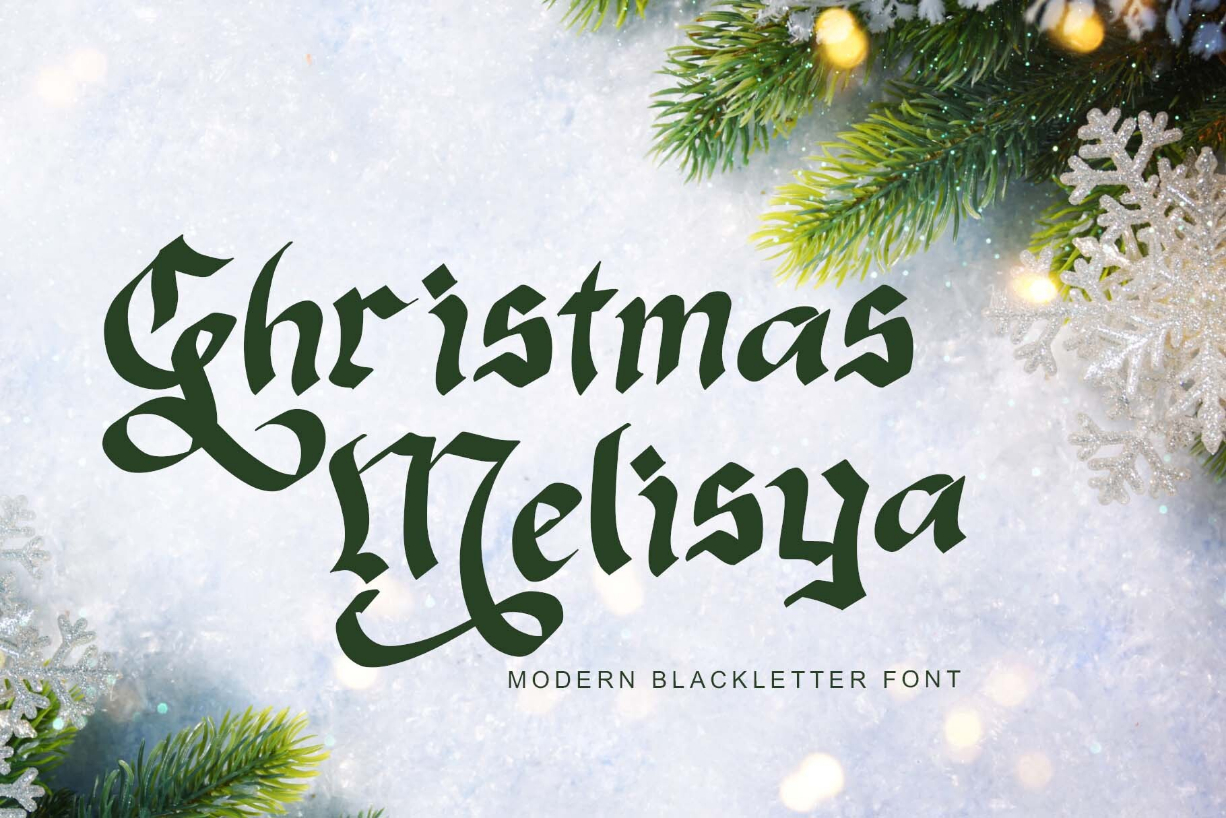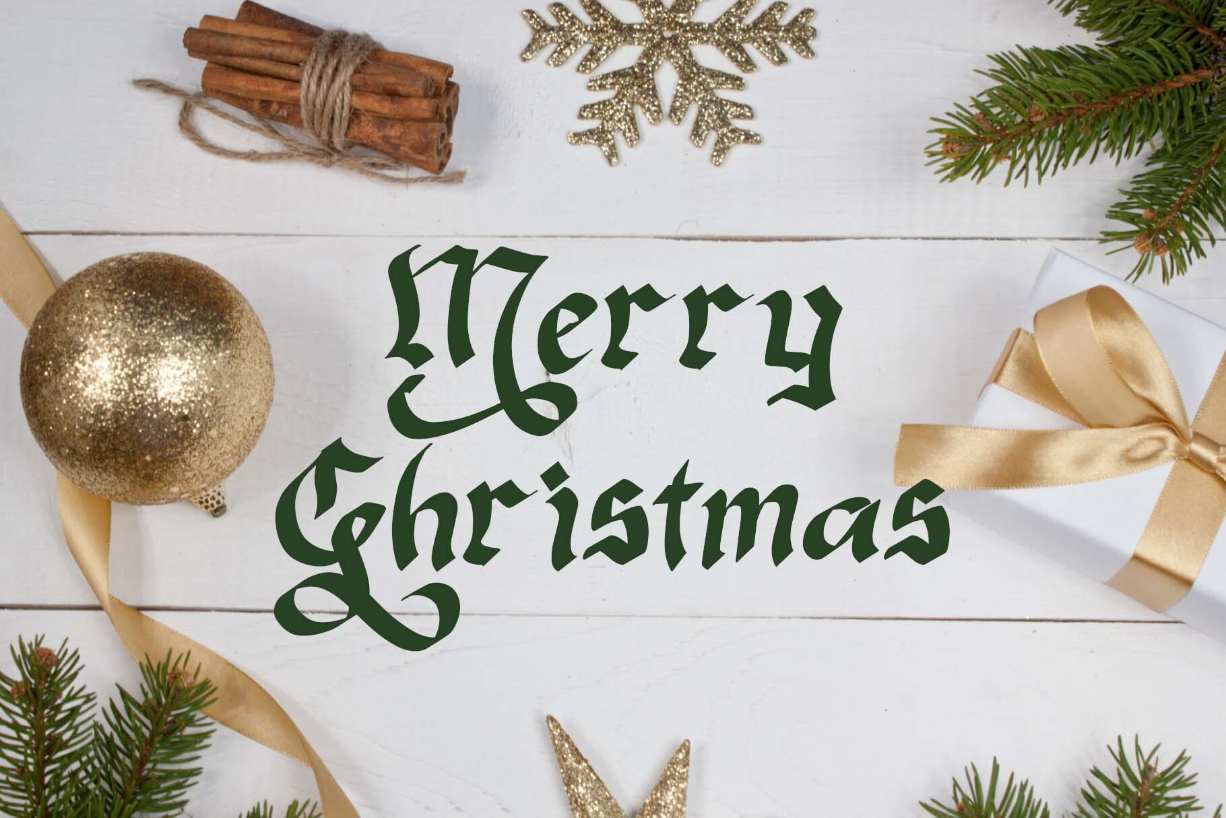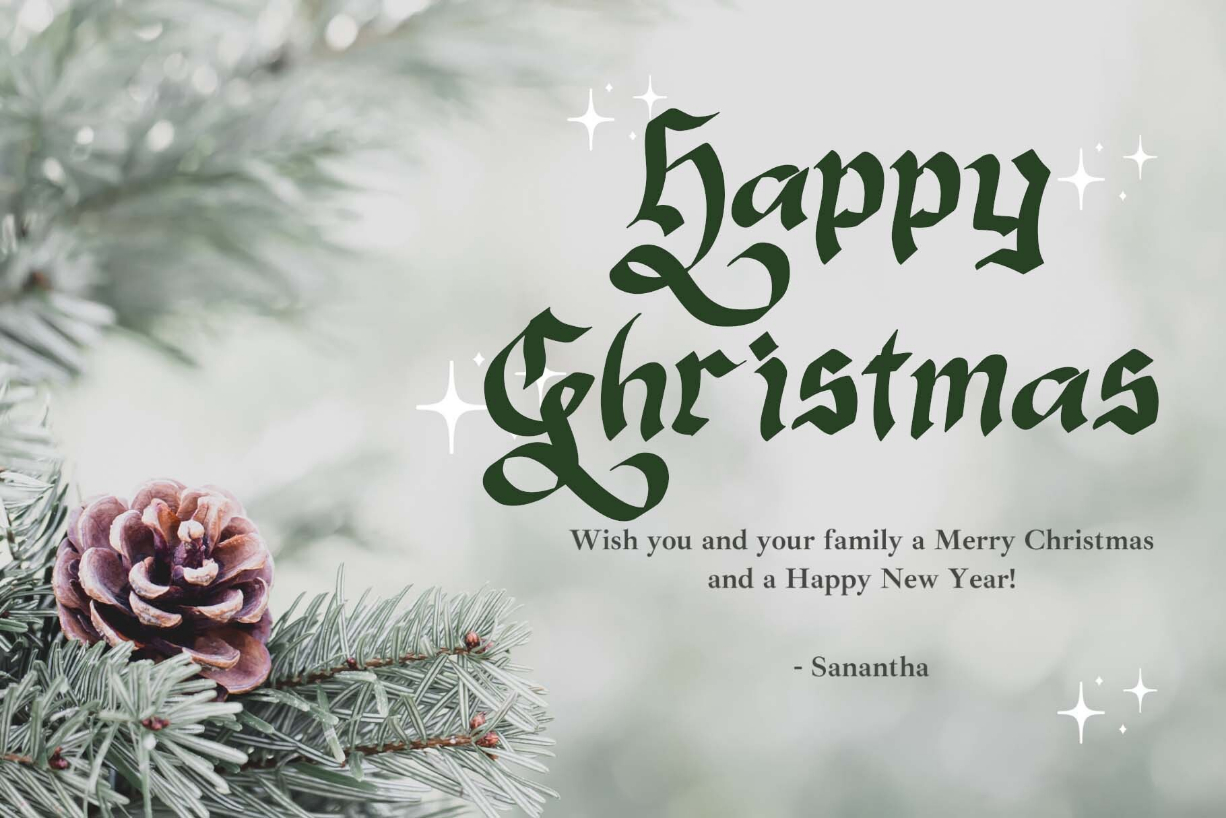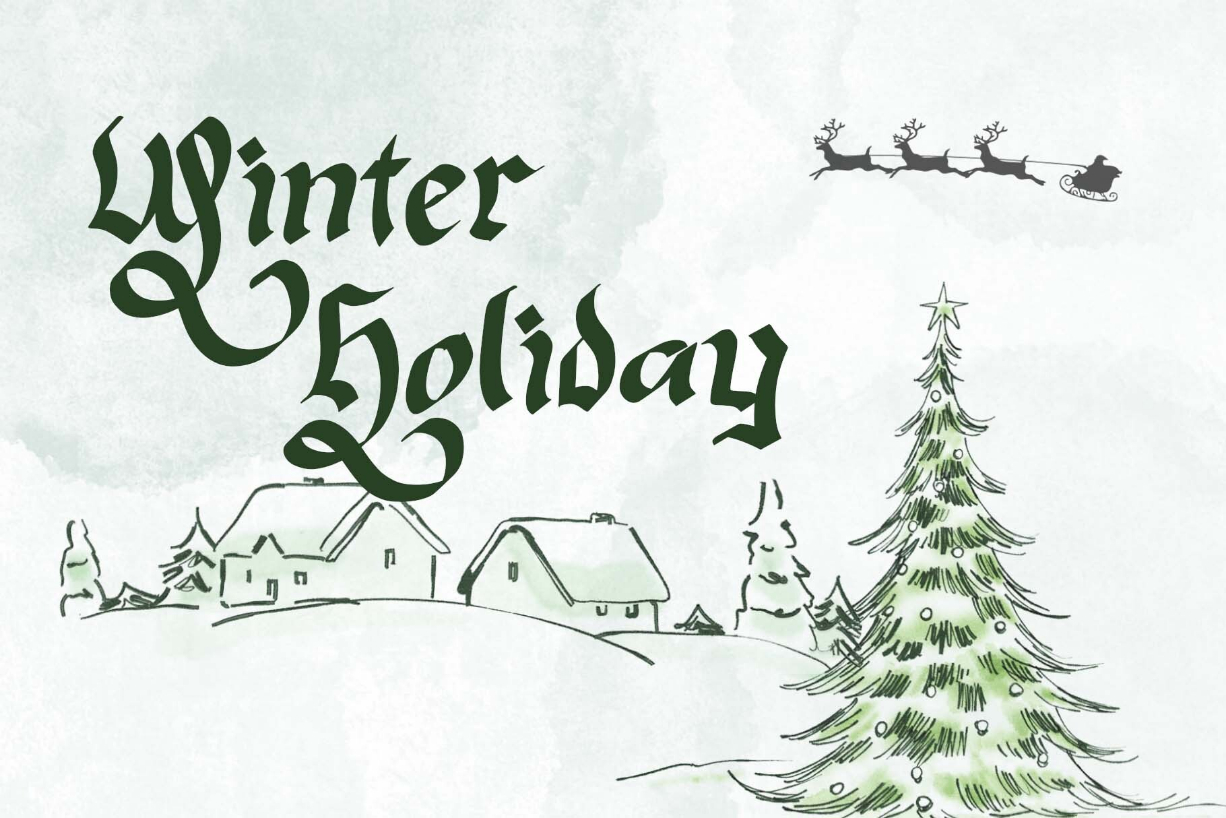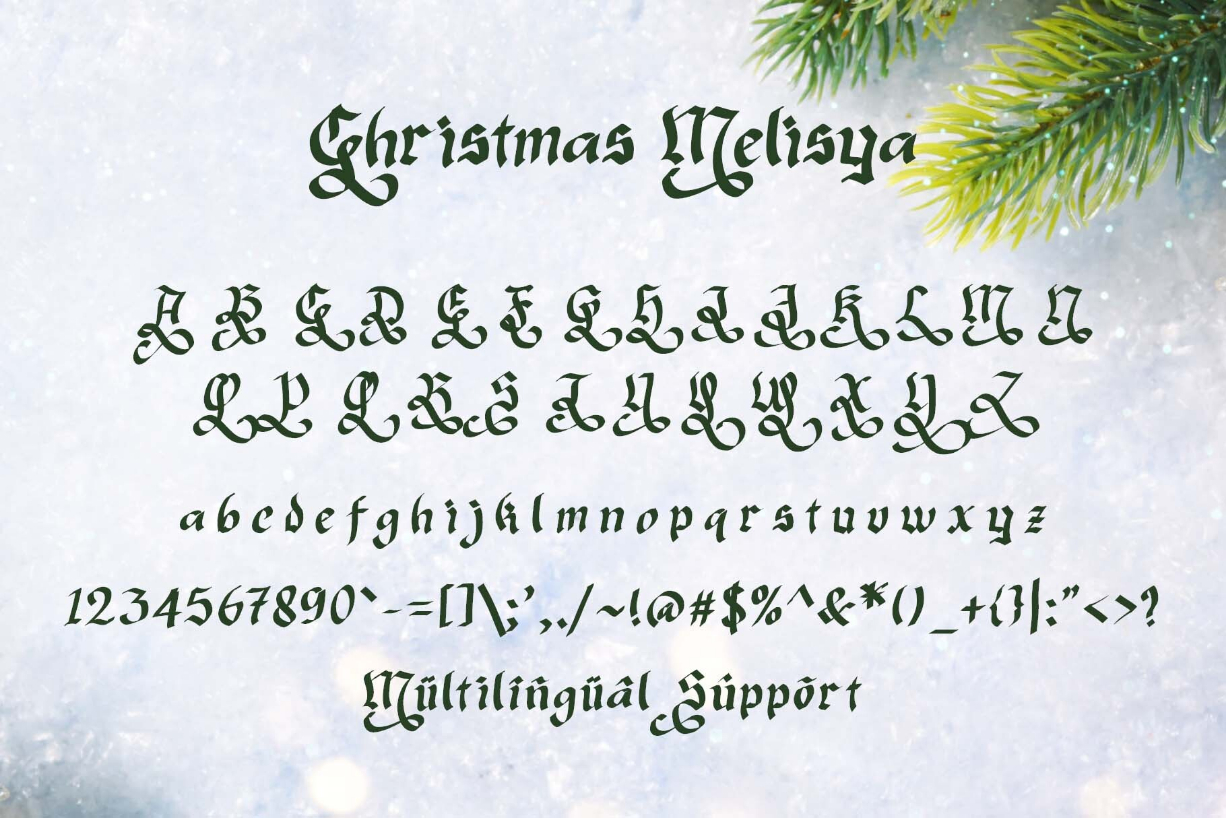
Christmas Melisya Font
About Christmas Melisya Font
“Christmas Melisya” is a unique and elegant blackletter font. This font is equipped with uppercase, lowercase, numerals, punctuation, and multilingual support. Very suitable for Christmas, weddings, winter, Valentine’s, invitations, photography, spring, summer, fall, and others.